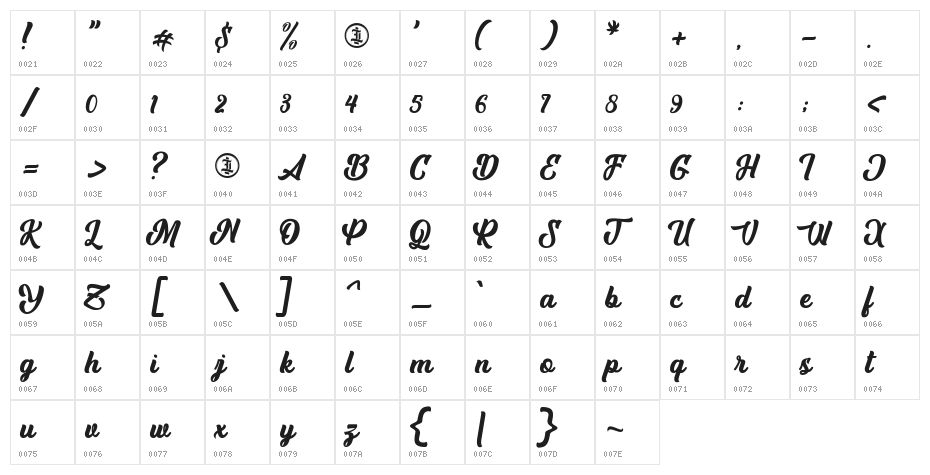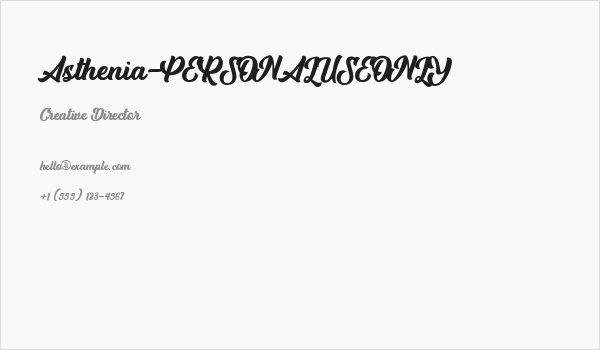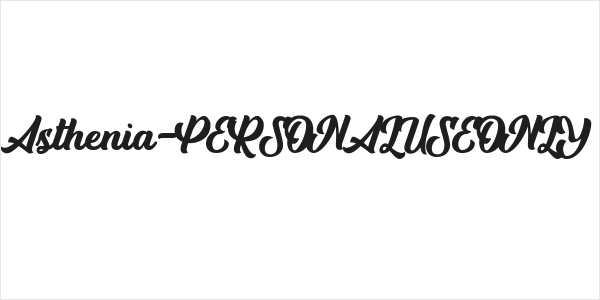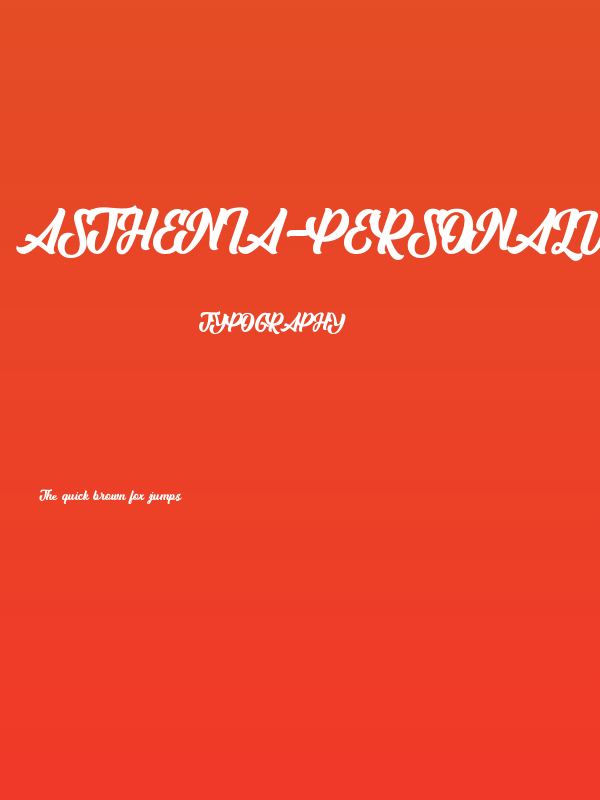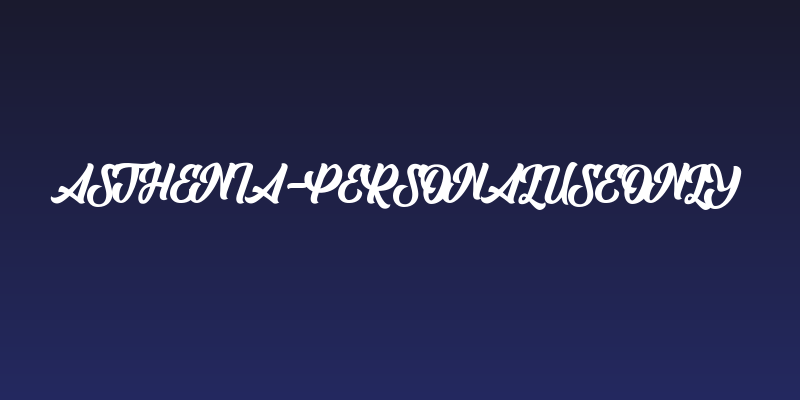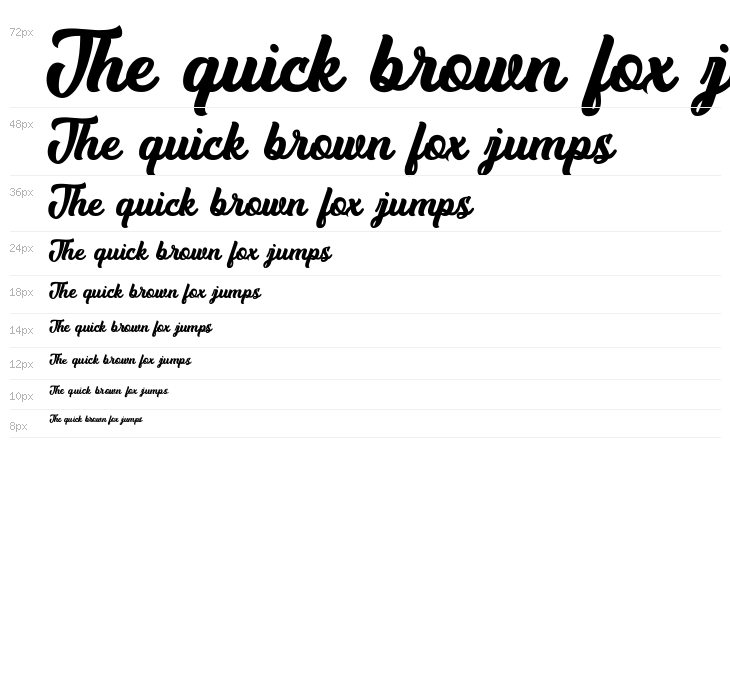
Asthenia-PERSONALUSEONLY Font
Asthenia-PERSONALUSEONLY Description
This font features a bold and flowing script style, characterized by its elegant and cursive letterforms. The uppercase letters are particularly ornate, with sweeping curves and flourishes that give a sense of movement and grace. The lowercase letters maintain a consistent style, with rounded edges and a smooth, connected appearance that enhances readability. The numerals are equally stylized, matching the overall aesthetic of the alphabet. Special characters are designed to complement the script, adding versatility for various uses. The font's overall design is both sophisticated and playful, making it suitable for creative projects.
| Proposed Projects | Ideal for wedding invitations, branding, greeting cards, and other creative projects that require a touch of elegance and personality. |